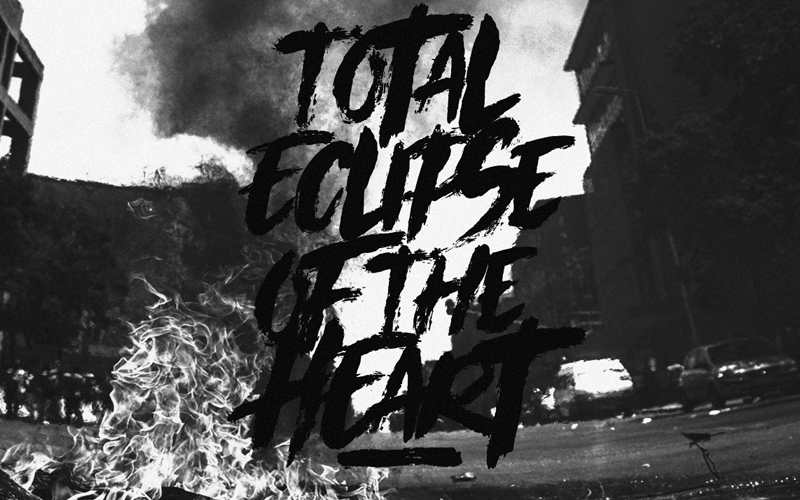
Preview and download Eclipse Font. Created by The Branded Quotes in Script Trash styles with Demo license.
Demo Version. Purchase the Full Version with Commercial License: https://sellfy.com/p/QAt4/ About this font: This is messy and chaotic. A font of disorder. Eclipse! With the use of an old round brush and textile ink, we produced a detailed look of another raging font. |